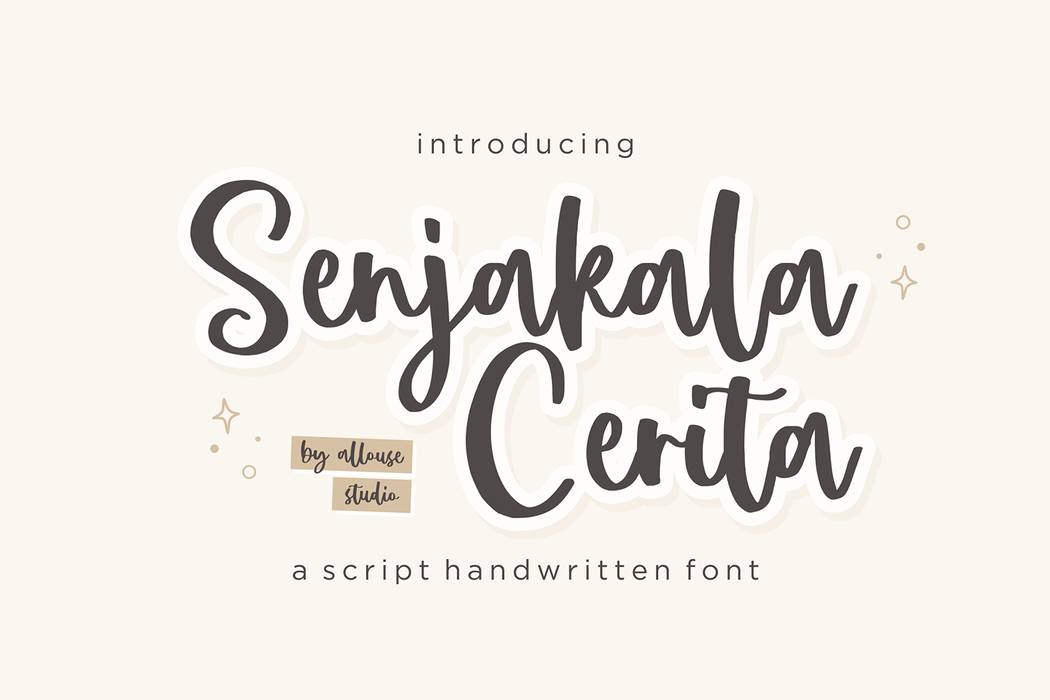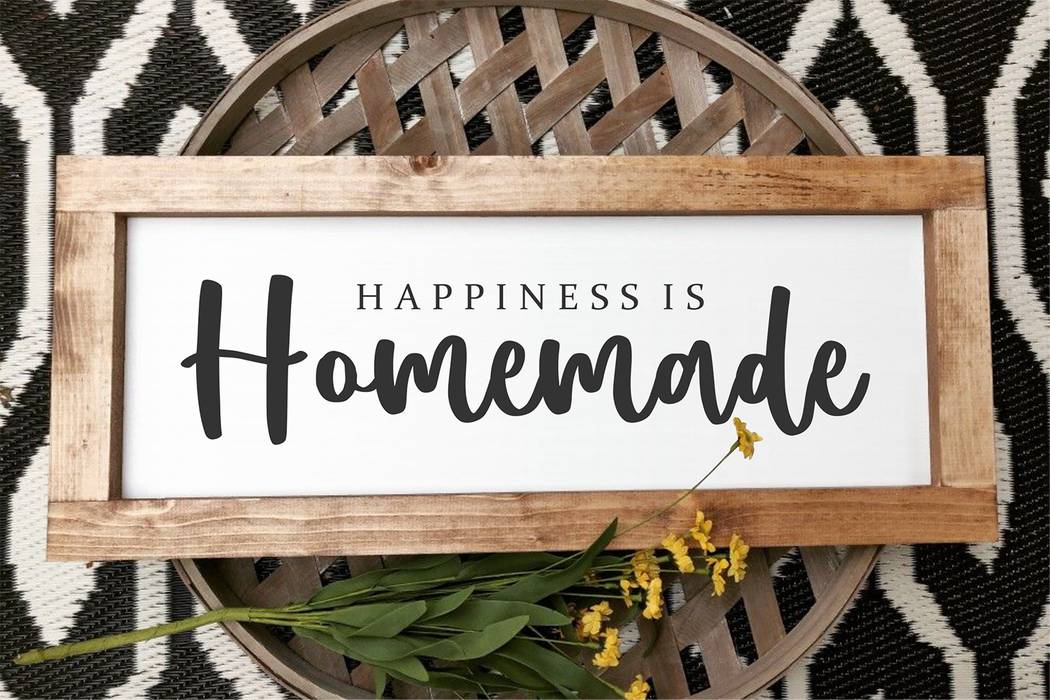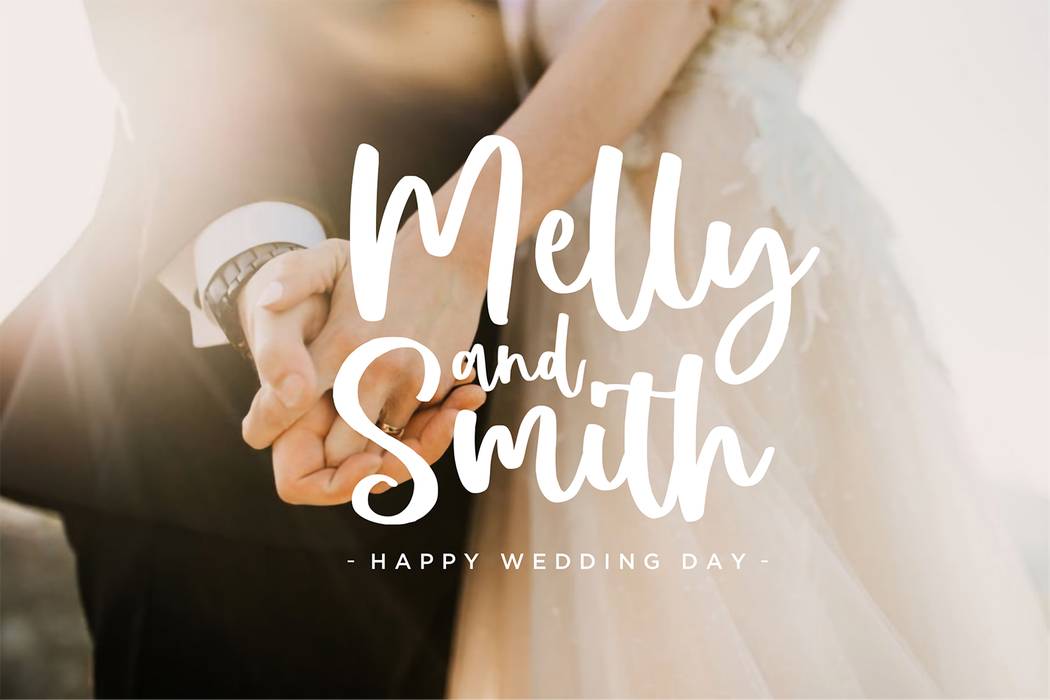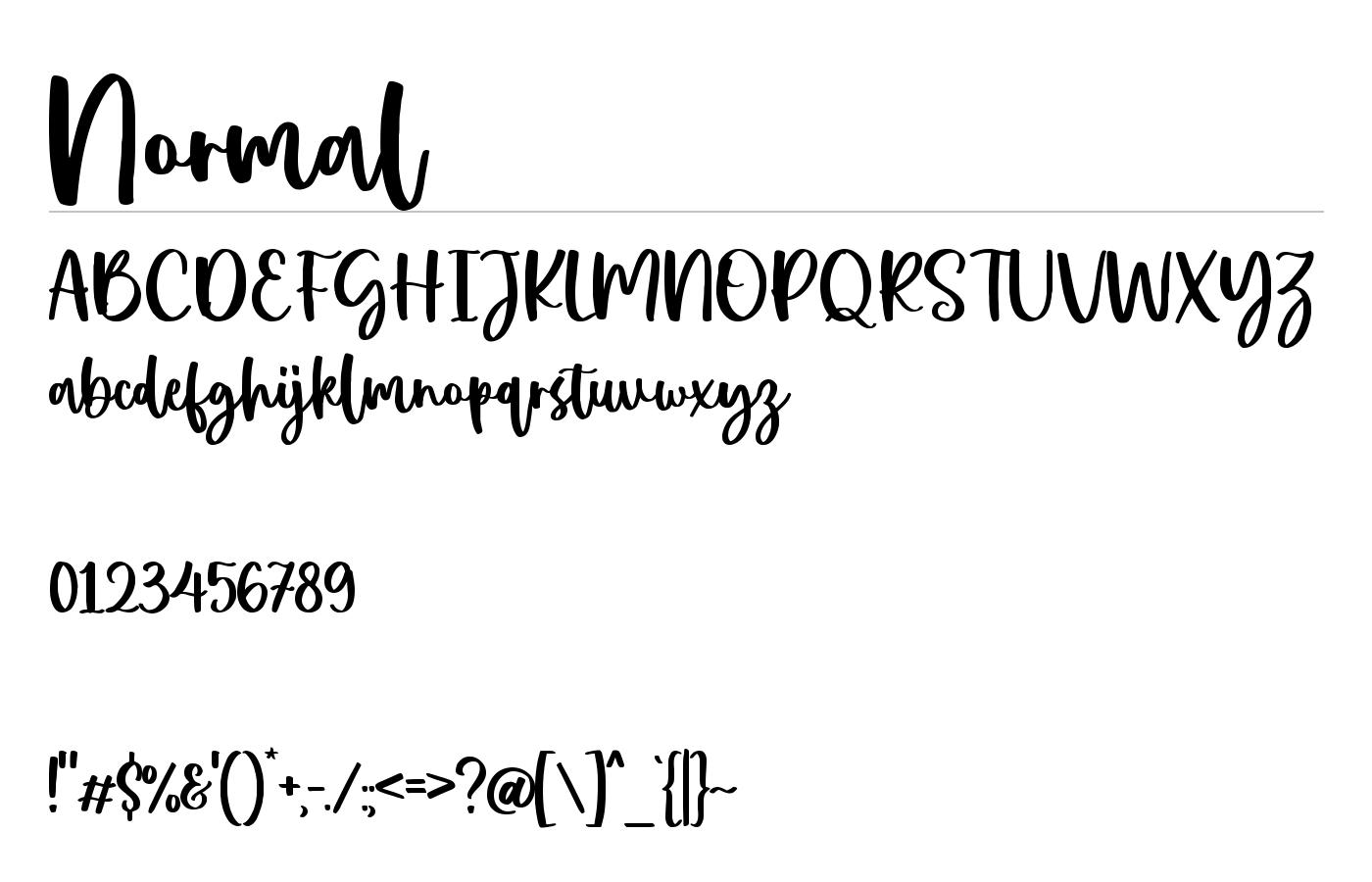
Senjakala Cerita is a playful, handwritten script font characterized by its irregular strokes and lively letterforms, giving it a friendly and casual feel. Its medium weight and varying stroke widths create a charming, organic texture perfect for creative projects that aim to convey warmth and personality. This font works well in invitations, logos, and social media graphics where a personal, approachable style is desired.
Senjakala Cerita Font